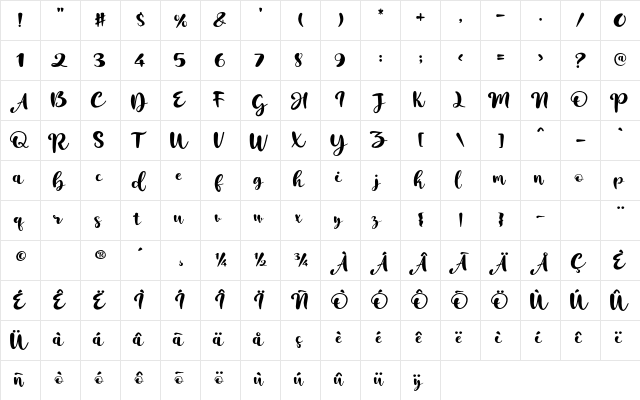
Creatine Youth Regular
| Foundry | 177Studio.com |
| Designer | 177Studio.com |
Design Context for Creatine Youth Typeface
Creatine Youth is a composed and adaptable typeface that performs quietly and consistently across a wide range of design contexts.